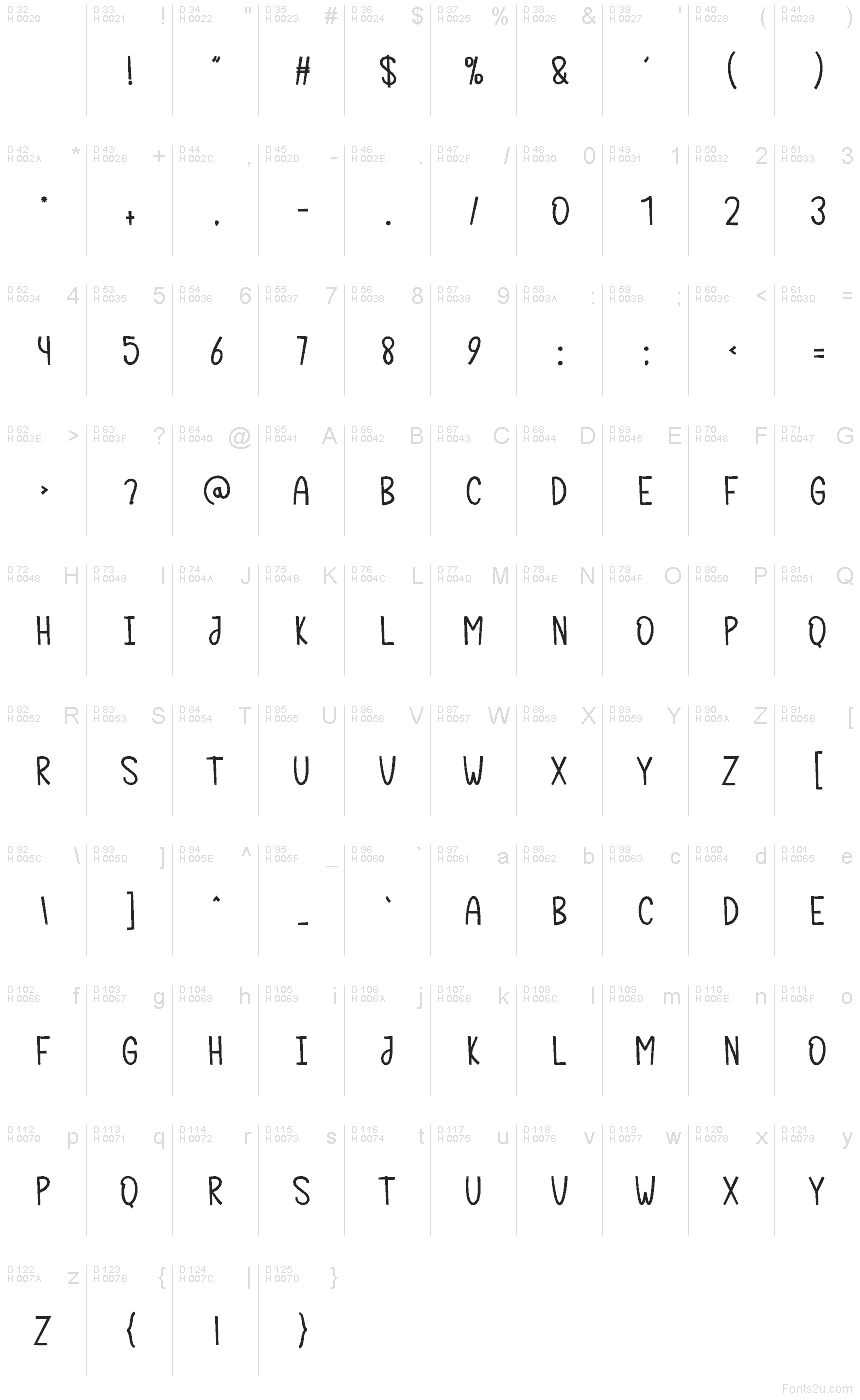
Candycane
Candycane font, designed by Scratchones, is a peculiar free handwritten display font with condensed letters and rounded endings. The unusual shapes of the letters vary in height showcasing an uneven combination that adds a slightly whimsical feel to the text. Another facet of this retro-inspired typeface is its noticeable texture which makes it suitable for special designs.